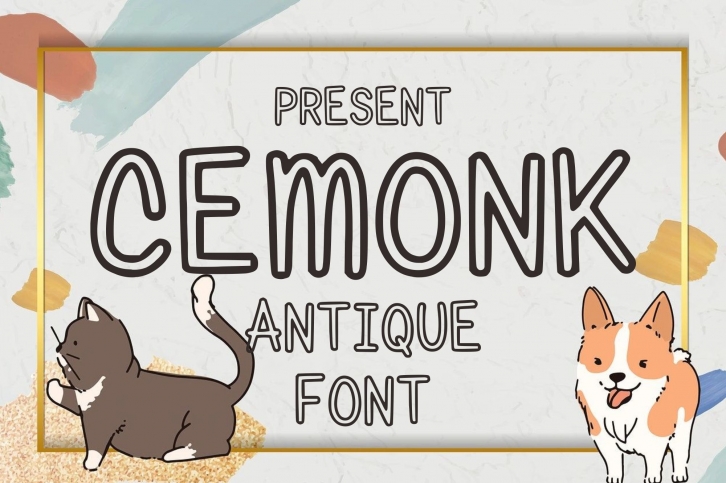
Cemonk is a cool display font with unique and modern vibes. It will look beautiful on product packaging, t-shirts, labels, posters, logos and anything else you wish to develop!